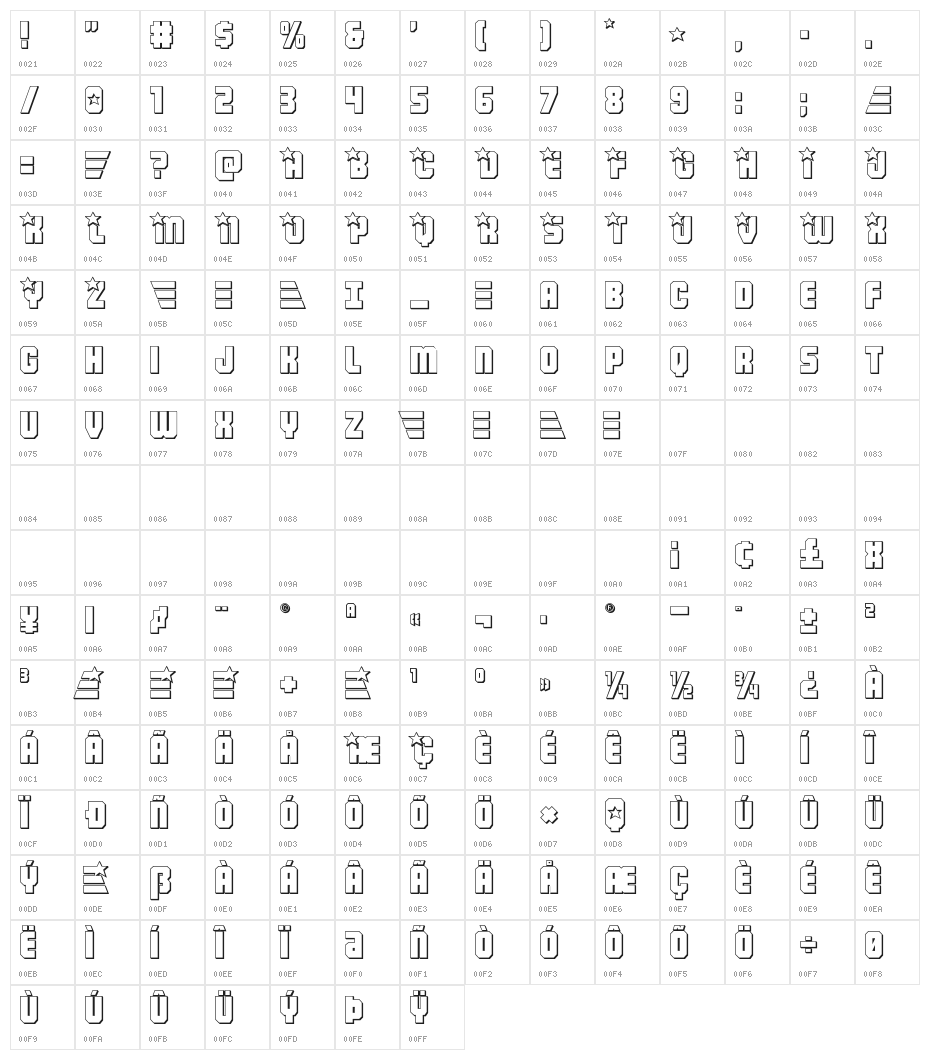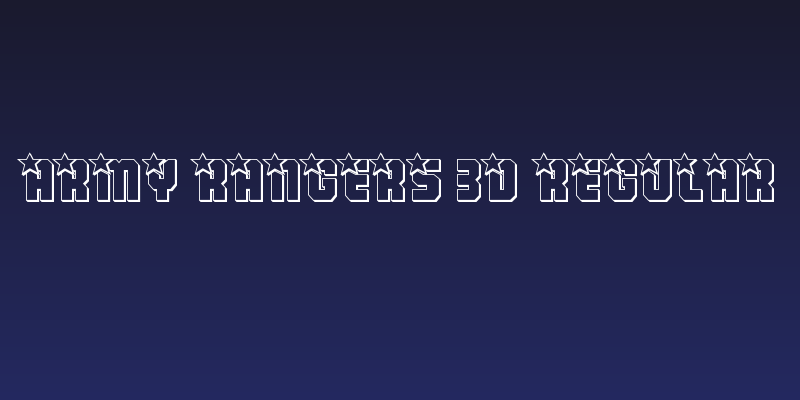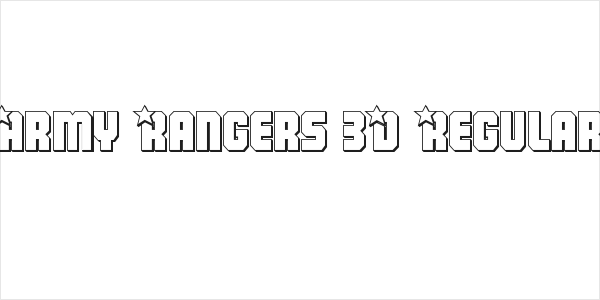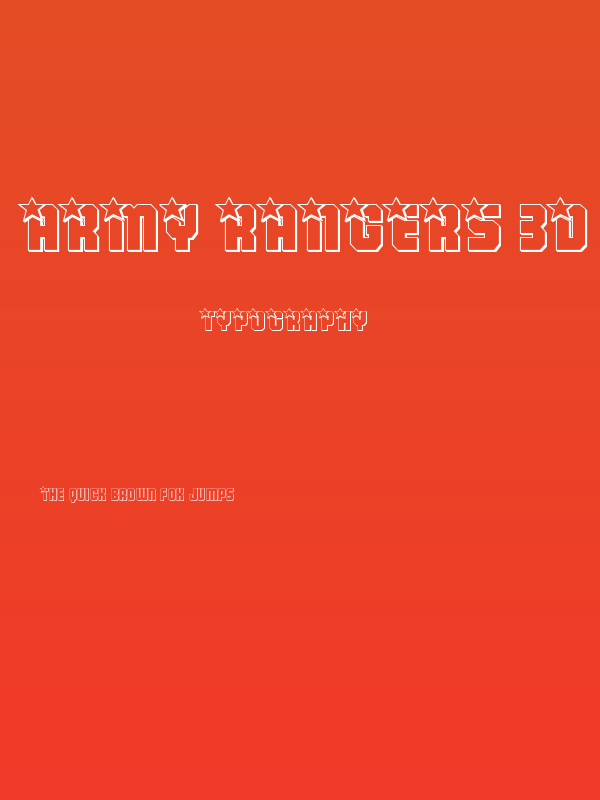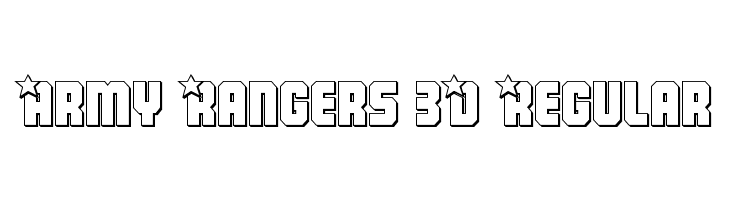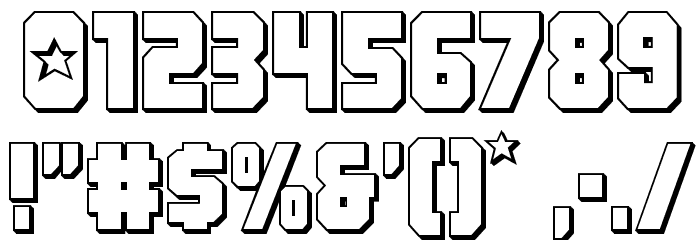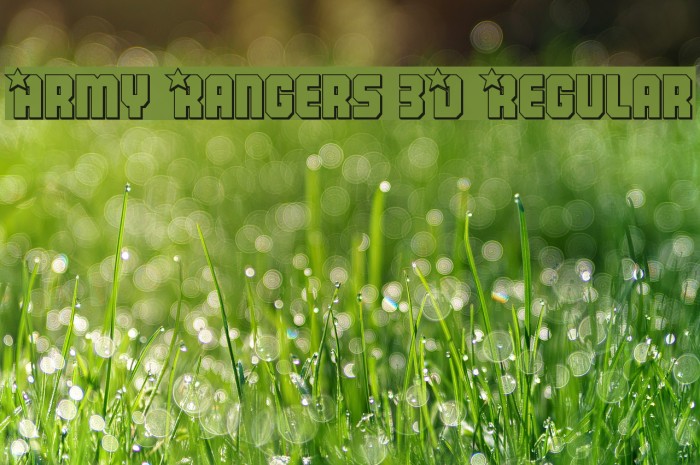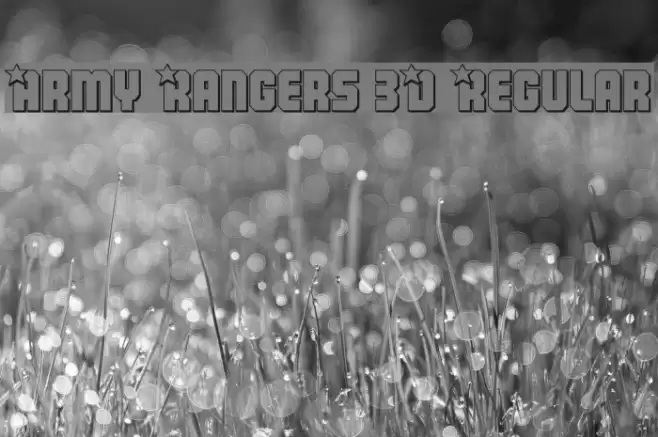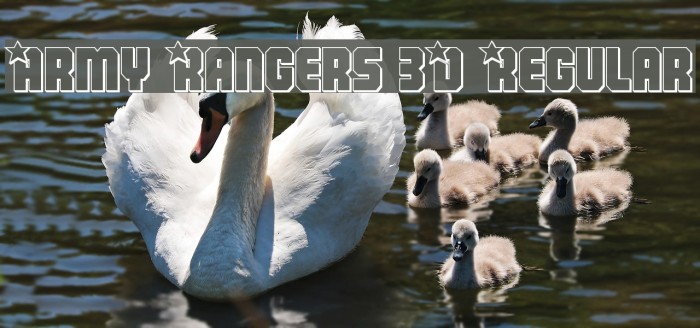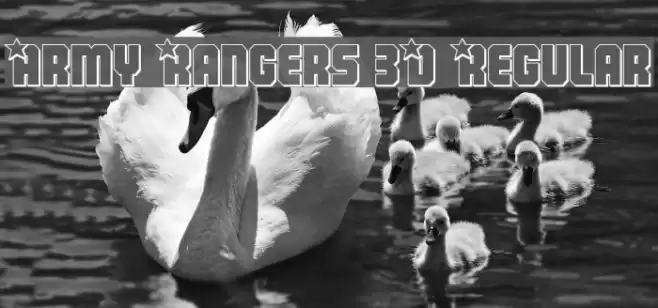
Army Rangers 3D Regular Font
Army Rangers 3D Regular Description
This font features a bold, three-dimensional style with a military-inspired aesthetic. The uppercase letters are adorned with stars, adding a decorative and patriotic touch. The characters are blocky and robust, with a strong presence that commands attention. The numbers and special characters maintain the same bold, outlined style, ensuring consistency across all elements. The font's design is ideal for projects that require a strong, impactful look, such as posters, banners, and themed events. Its unique style makes it stand out, while the 3D effect adds depth and dimension.
| Proposed Projects | Ideal for military-themed posters, banners, event signage, and promotional materials. |